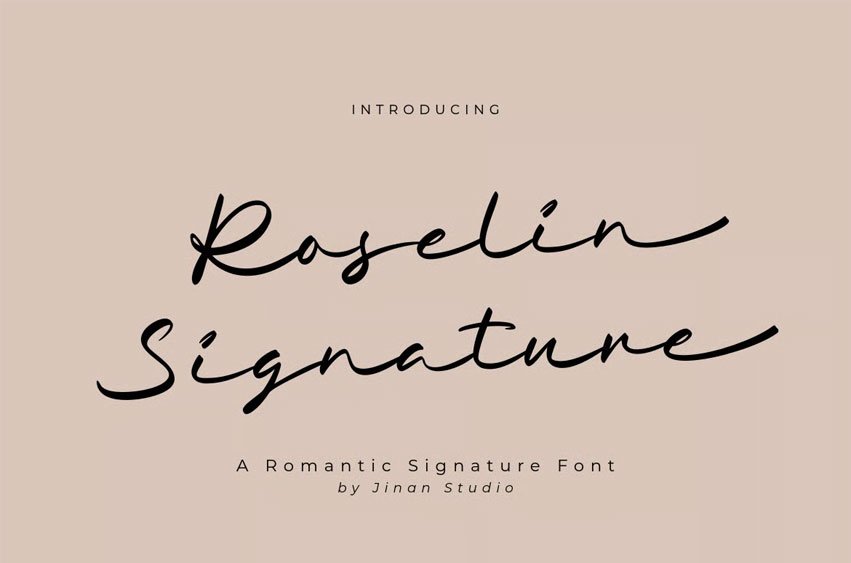
Roselin Signature Font is a classy signature script with an elegant handwritten flow.
Perfect for wedding quotes, invitations, logos, and branding projects that need a romantic and stylish touch. Includes beautiful ending swash alternates for a timeless look.
- A set of uppercase and lowercase glyphs
- Number, symbol, and punctuation
- Multilingual Support
- Alternates